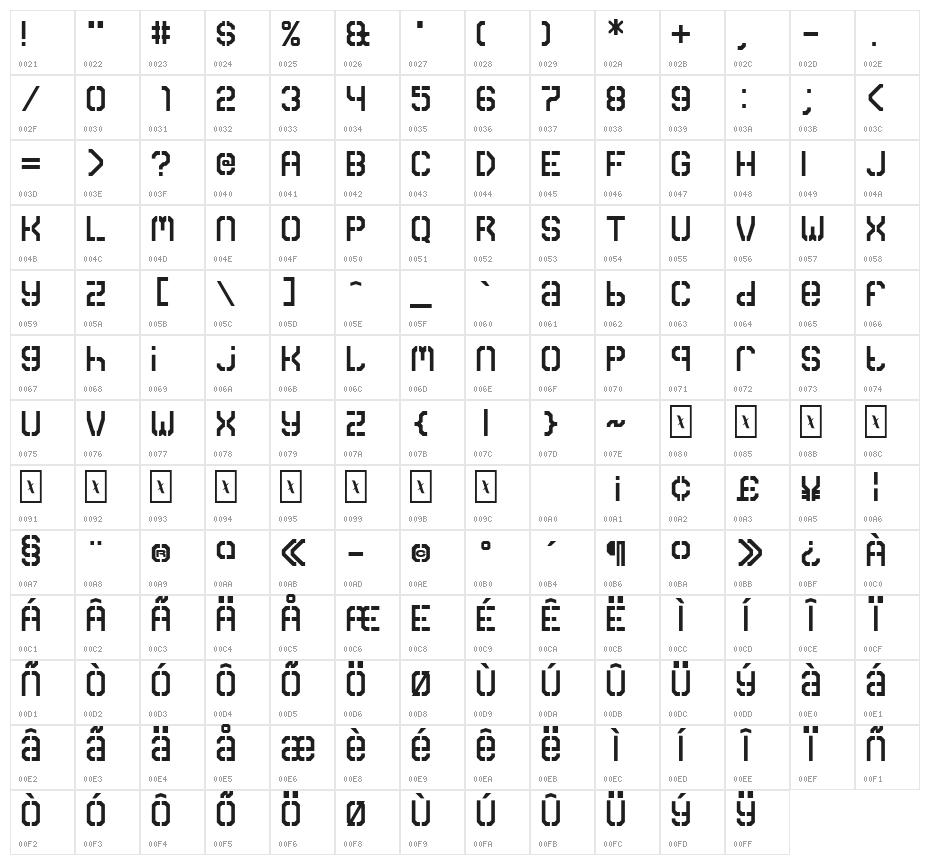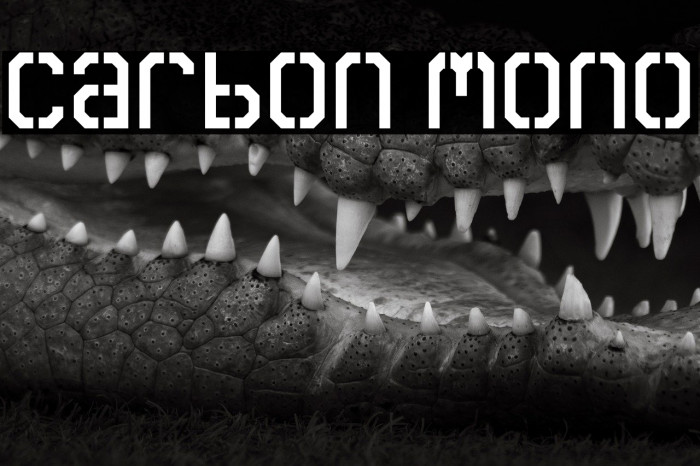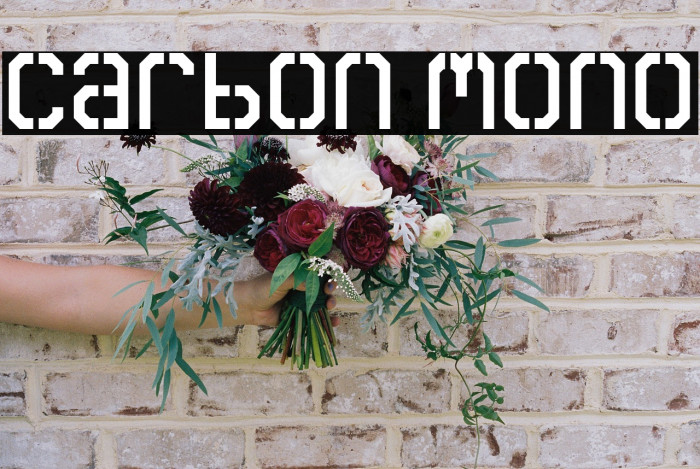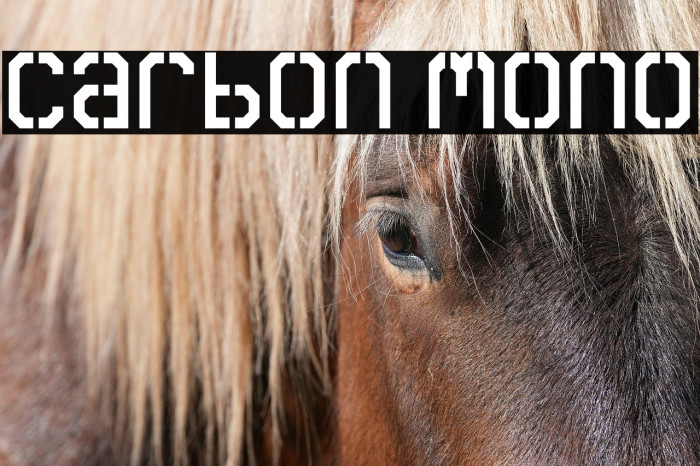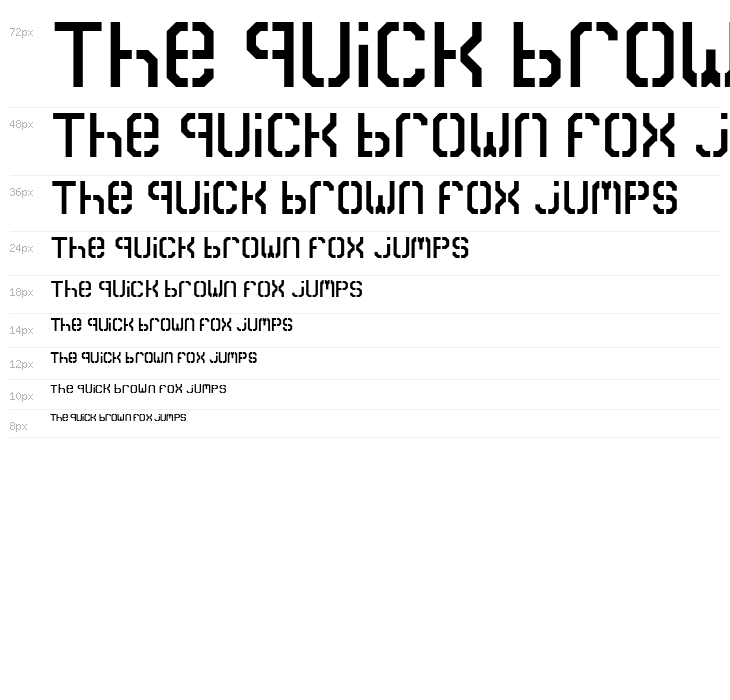
Carbon Mono Font
Carbon Mono Description
This font features a distinctive, geometric style with a monospaced design. Each character is crafted with a consistent width, creating a uniform appearance across all letters and numbers. The font exhibits a modern, industrial aesthetic with angular cuts and a blocky structure, making it stand out in digital and print media. Its bold presence is enhanced by the sharp edges and clean lines, which contribute to its legibility and visual impact. The uppercase and lowercase letters maintain a cohesive look, while the numerals and special characters are designed to match the overall style. This font is ideal for projects that require a contemporary and tech-inspired feel.
| Use Case | Headlines, Logos, Coding |
| Proposed Projects | Ideal for tech branding, coding interfaces, digital art, and modern posters. |